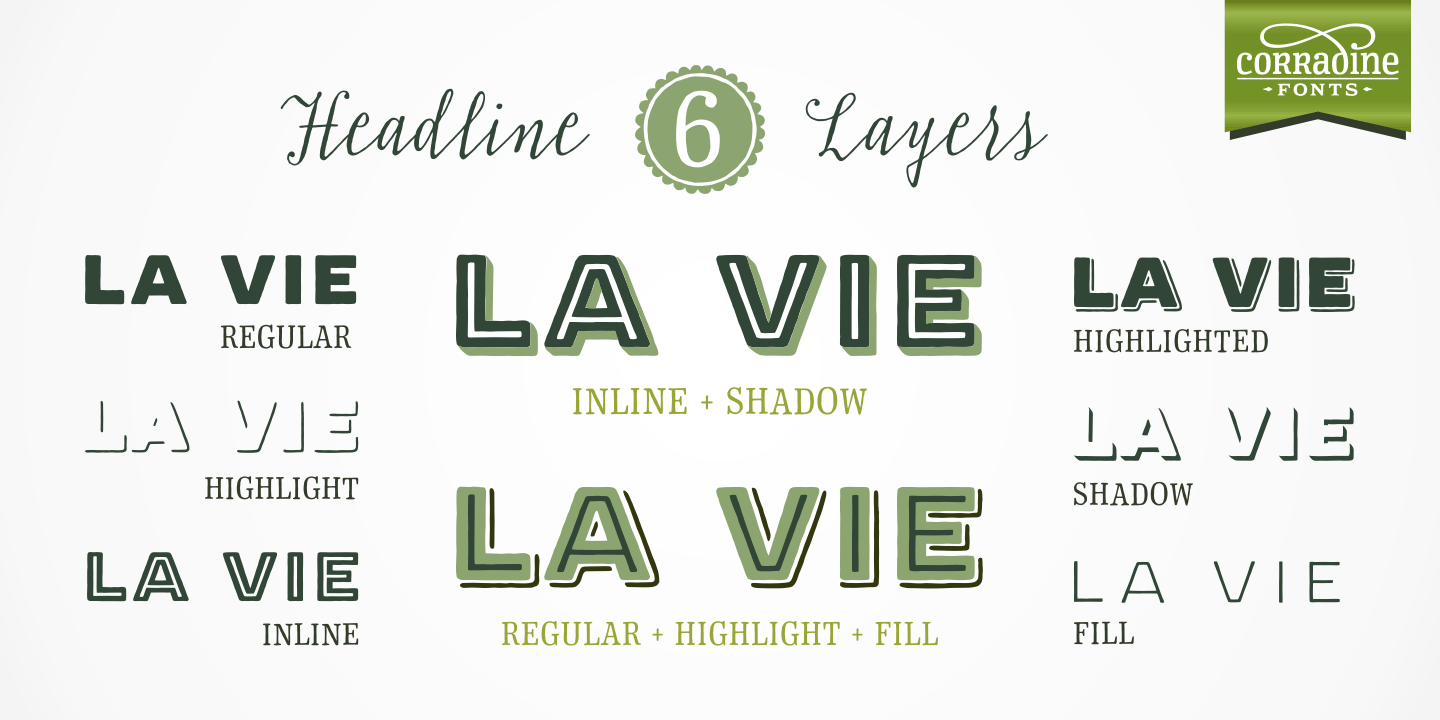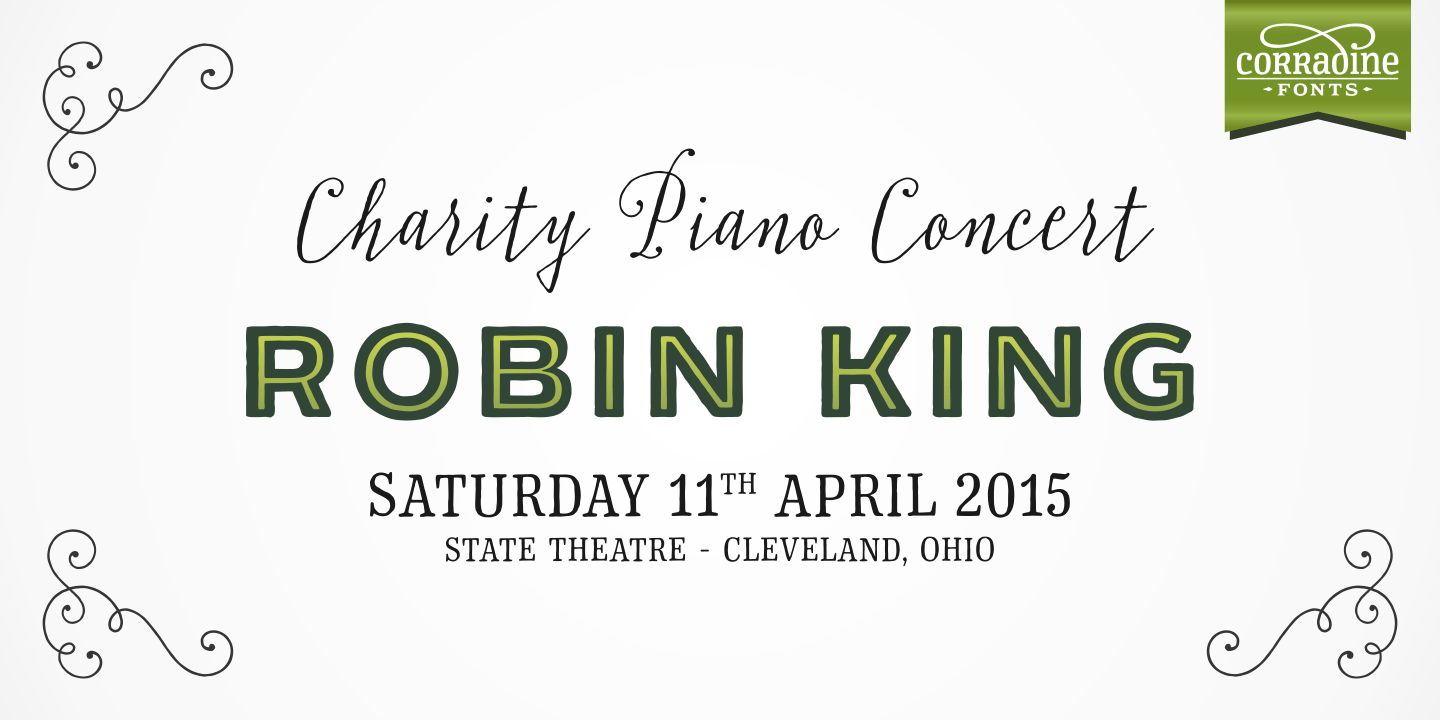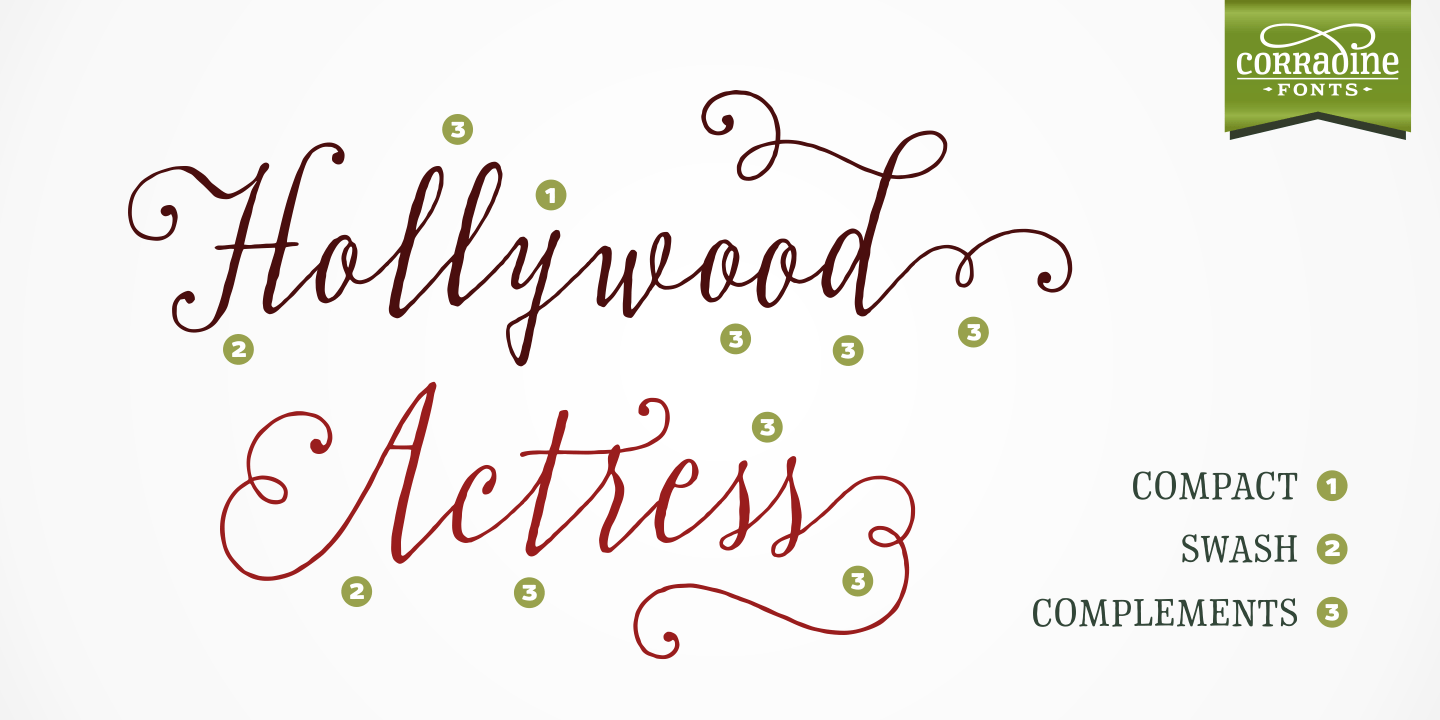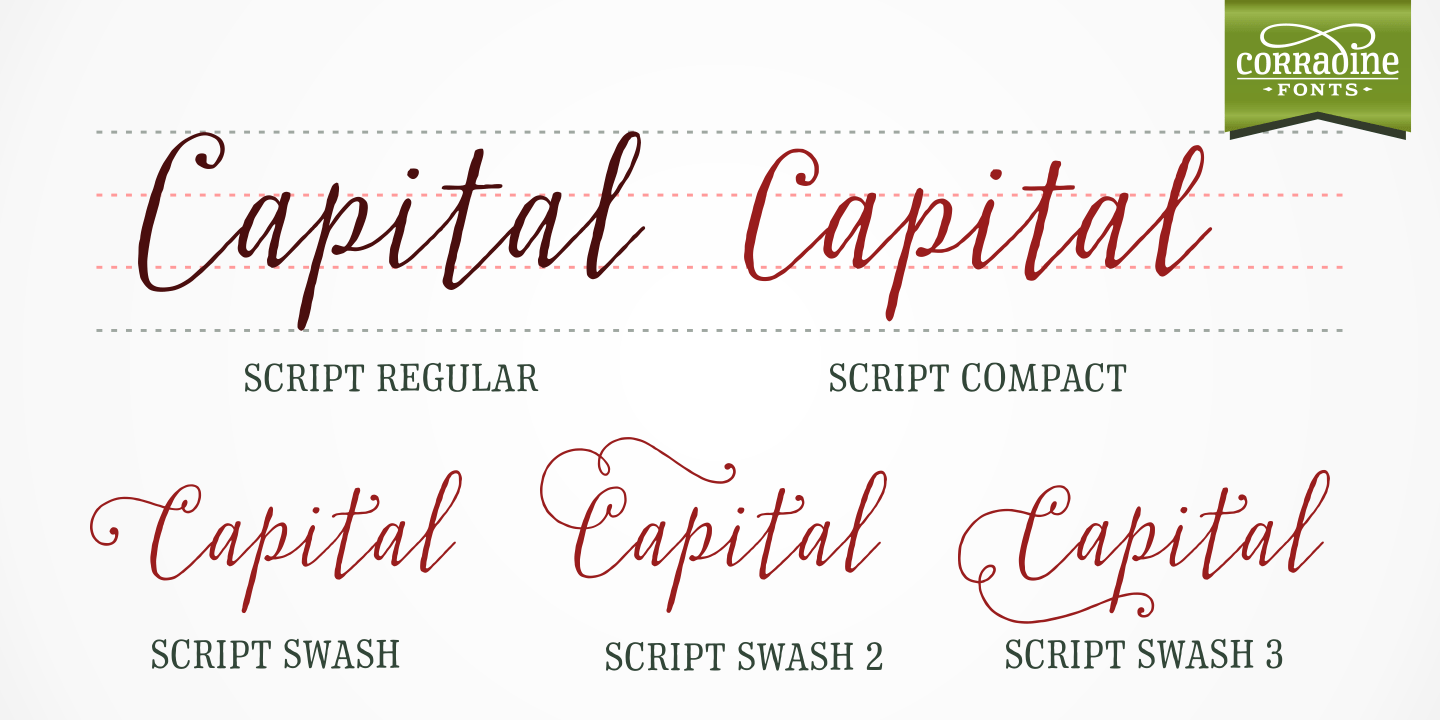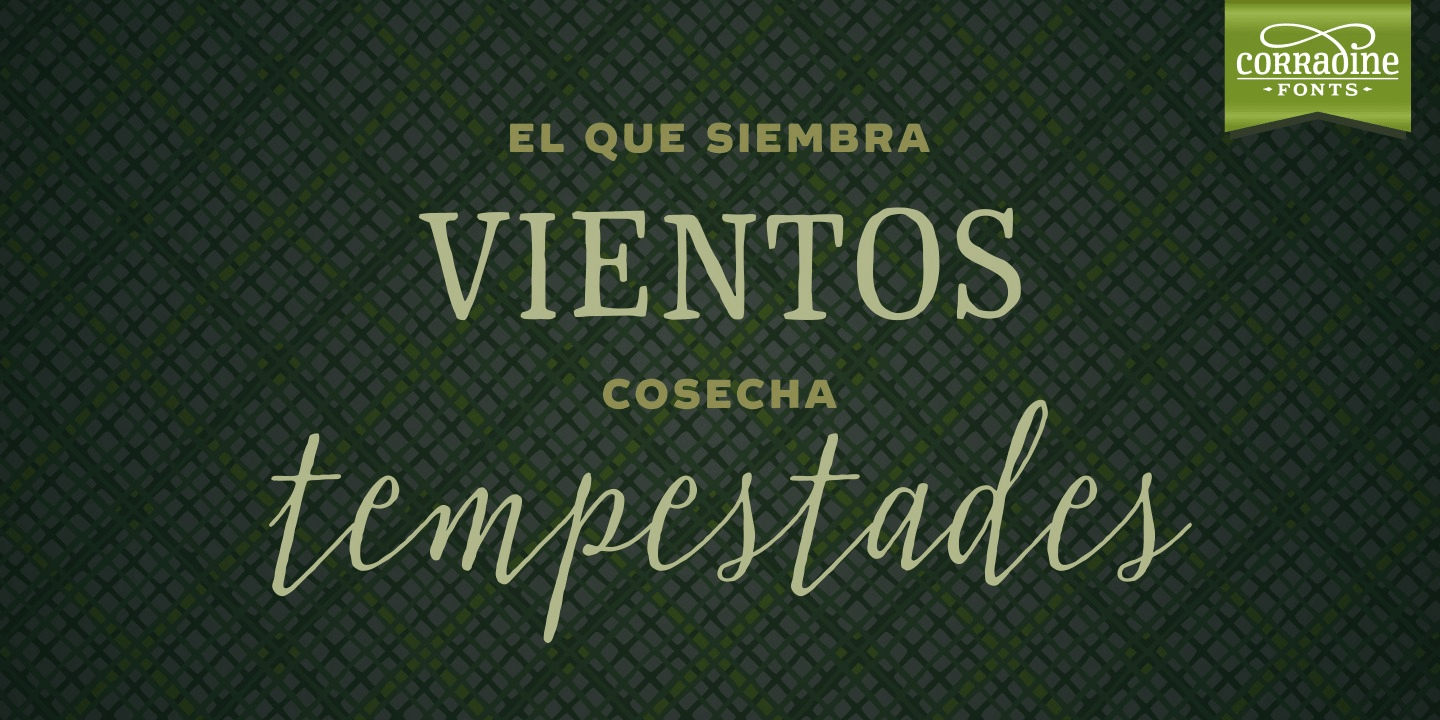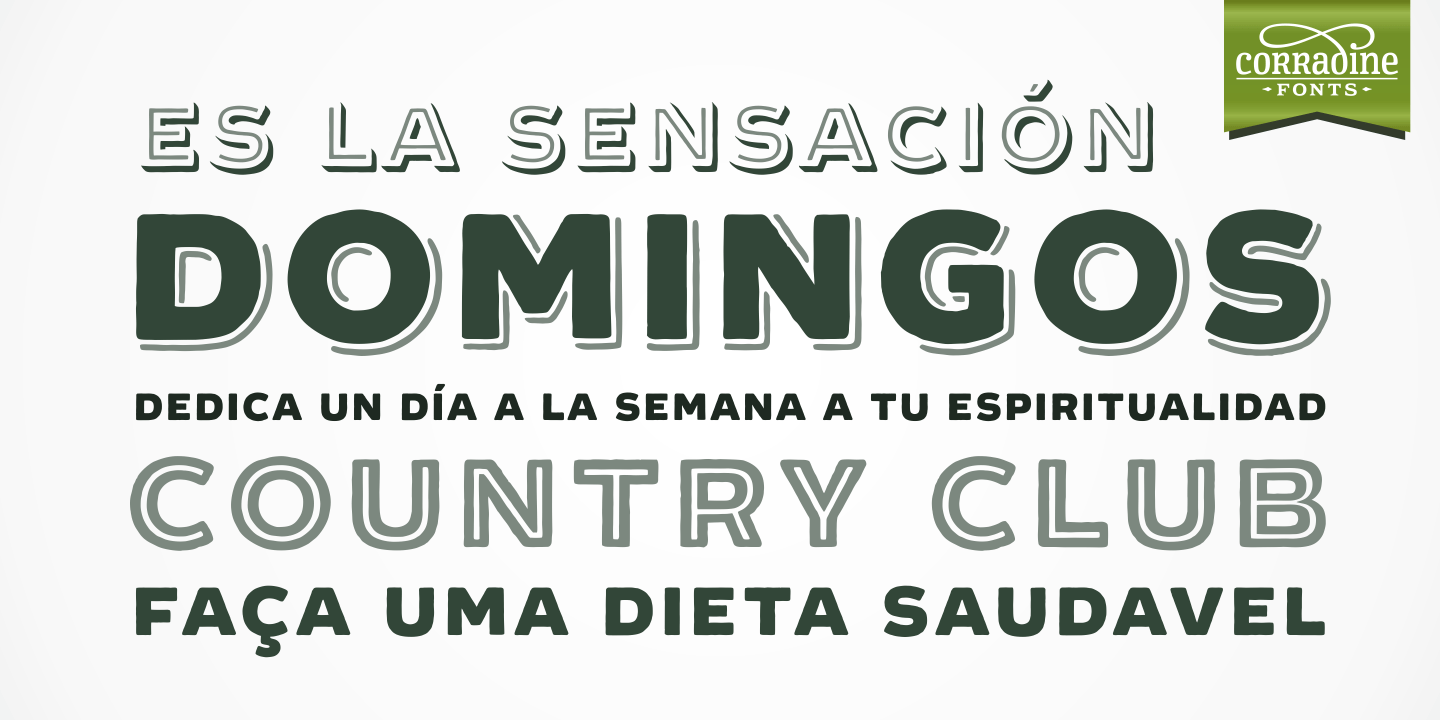
Everybody likes to have a picnic: some fresh fruits, cheese, ham, wine and so on. Like a \’typographic picnic,? Typnic font system gathers many fonts with different flavors too, and you can enjoy them mixed or on their own. Typnic was drawn and calligraphed…